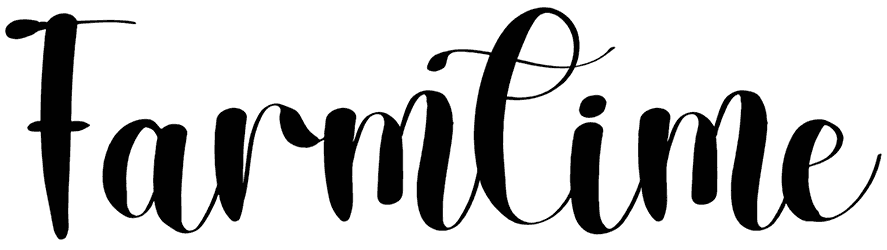
Farmtime Font
The potential of a lovely script font called Farmtime in boosting the quality of your artwork would be really beyond your imagination. This marvelous masterpiece comes with a rounded style and would be your game-changer in the realm of social media posts, product packaging, stickers, flyers, or magazines.
Aside from all of its numerous advantages, this farmhouse font can level up your content by adding a sense of dynamic, joy, jauntiness, or drama to all of your projects.